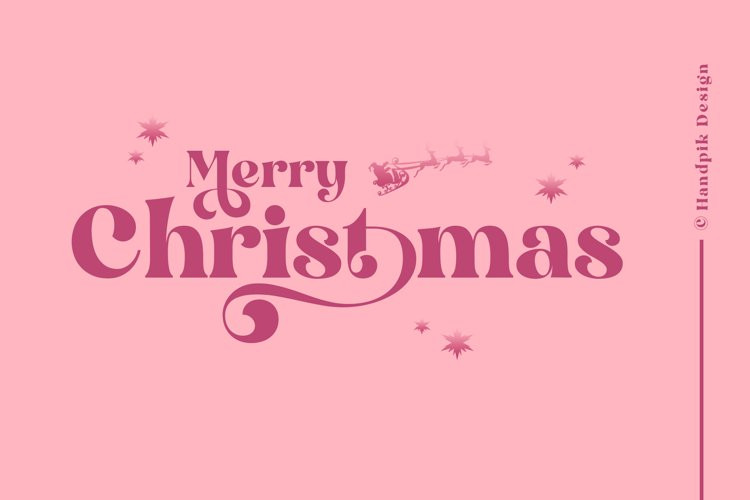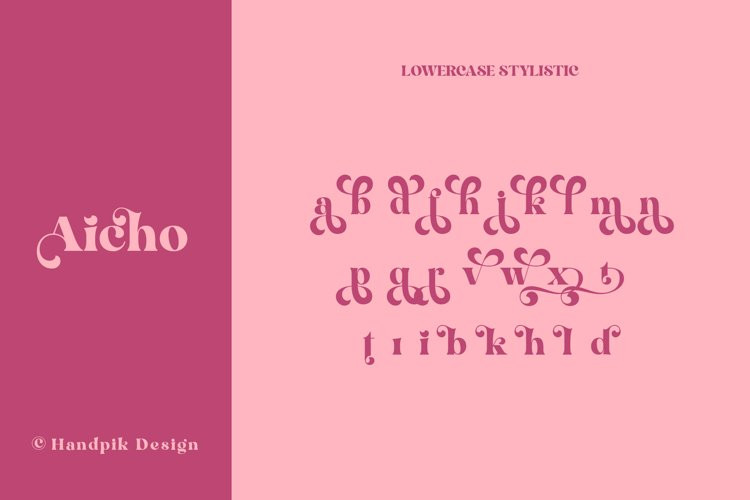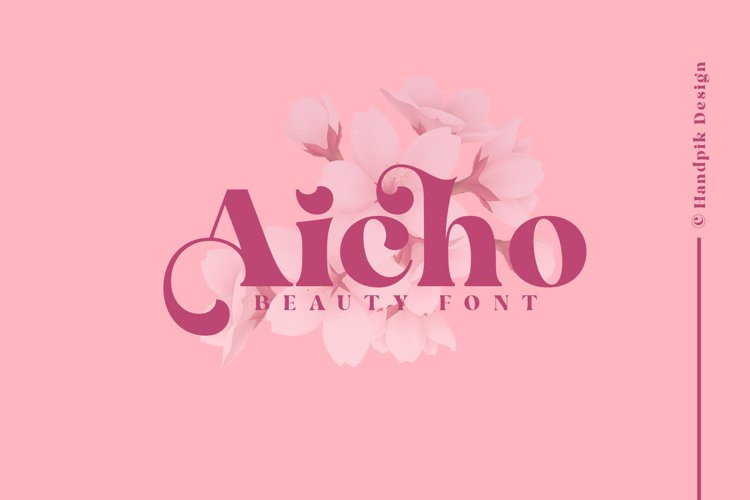
Aicho Font
Aicho FontAicho is beauty serif display.This font is suitable for invitation cards, decorations, clothing products, greeting cards and others. This font also has uppercase, lowercase, numeric, puntuation and multilingual. and there are several ligature and stylistic alternate.